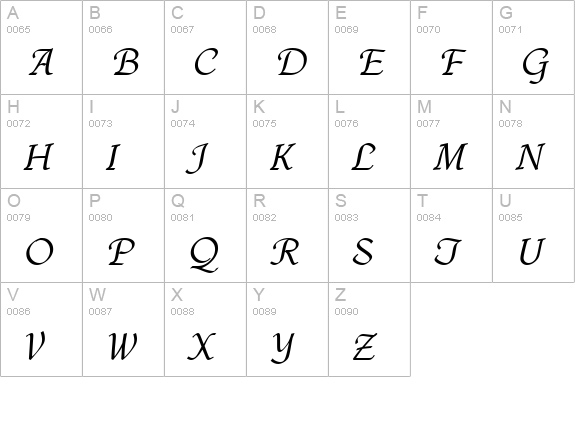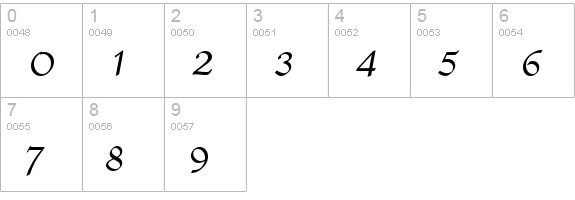
Quill Font Details
Introducing Quill font - a strikingly elegant typeface that effortlessly combines classic charm with a contemporary edge. Crafted with meticulous attention to detail, Quill exudes an air of sophistication and grace, making it perfect for a wide range of design projects. With its delicate strokes and graceful curves, Quill captures the essence of timeless penmanship, giving your text a refined and polished appearance. Each letter is carefully crafted to ensure legibility and readability, making it a versatile choice for both headings and body text. One of the most appealing aspects of Quill font is its versatility. Whether you're working on a formal invitation, a modern logo, or a vintage-inspired poster, Quill effortlessly adapts to any design concept, adding a touch of elegance and sophistication. But what truly sets Quill apart is its accessibility. This stunning font is freely available to download at FontsMarket.com, allowing designers and creatives alike to add a touch of class to their projects without breaking the bank. With its generous availability, Quill ensures that everyone can enjoy the beauty and versatility of this remarkable typeface. So, whether you're a professional designer looking for a versatile font to add to your collection or an aspiring creative seeking to elevate your projects, look no further than Quill font. With its timeless elegance and accessibility, this font is sure to leave a lasting impression on any design endeavor. Download Quill today at FontsMarket.com and embark on a journey of refined typography.